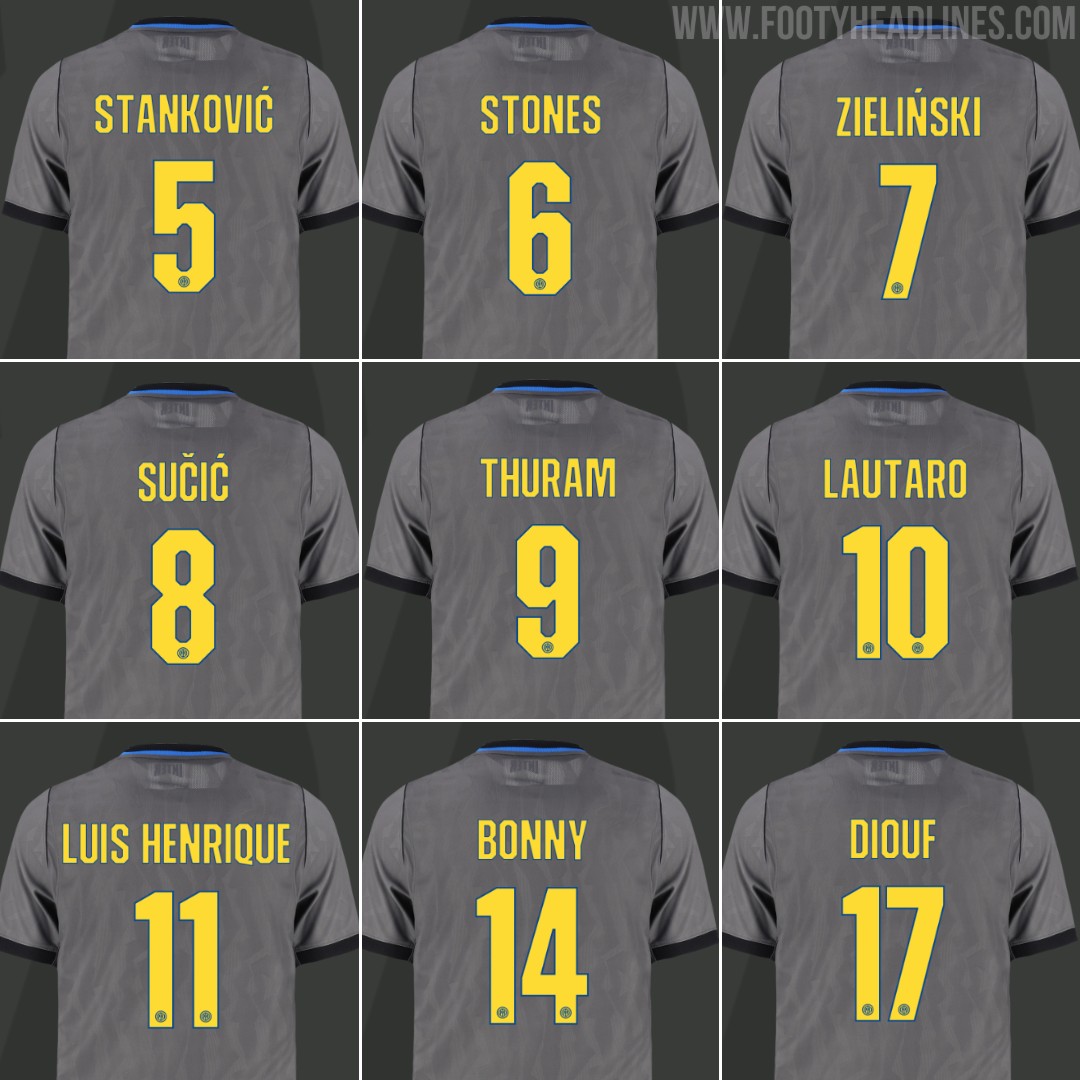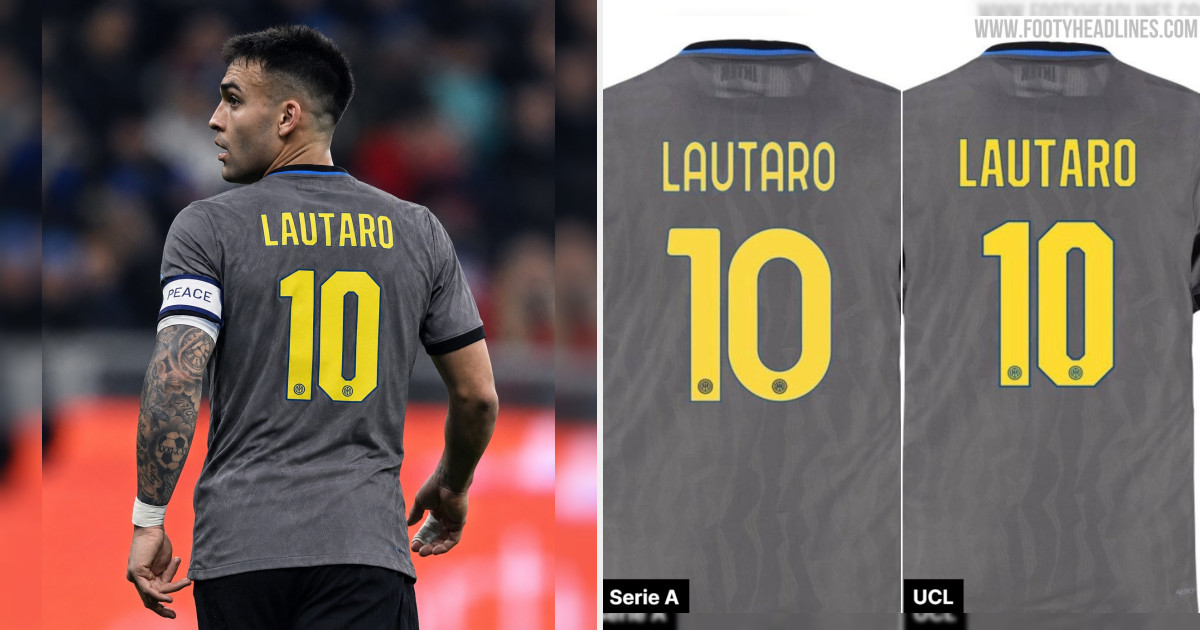
All-New Inter Milan 26-27 Champions League Kit Font Released
Inter Milan will have a dedicated name and number font for their new 2026-27 third kit in the UEFA Champions League, something rarely seen from the Nerazzurri in recent years as they have typically used the standard Serie A typography in Europe.
For Serie A, Inter use the standard league typography in Speed Yellow. In the Champions League, however, the Nerazzurri switch to a bespoke 1990s-inspired font with taller, sharper-edged lettering and numbers featuring a thin blue outline, matching the kit's grey.
Interestingly, Inter's 2026-27 home shirt uses the standard Serie A font and was worn in their first Champions League match against Real Madrid. The third kit, meanwhile, features a dedicated Champions League typeface.